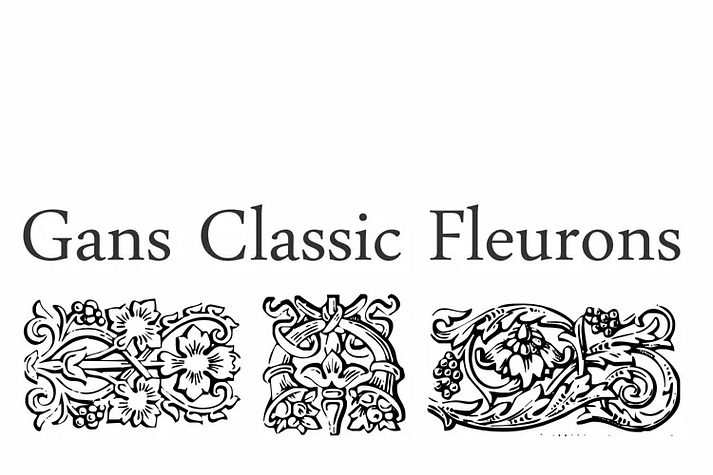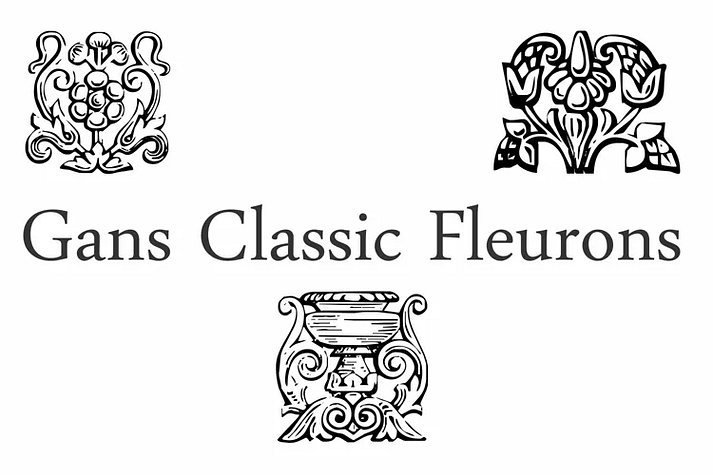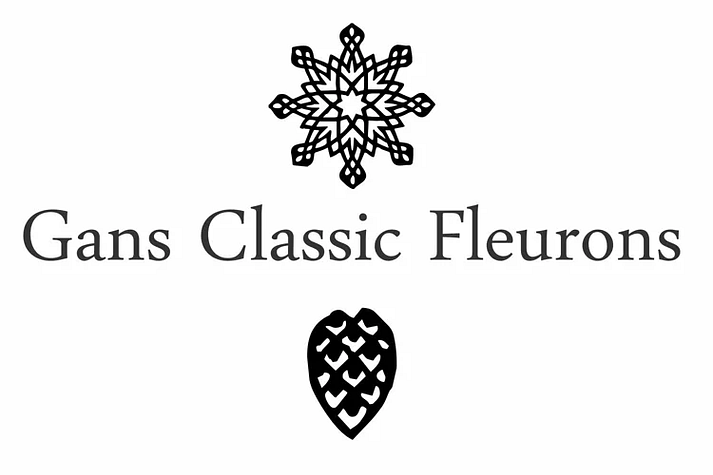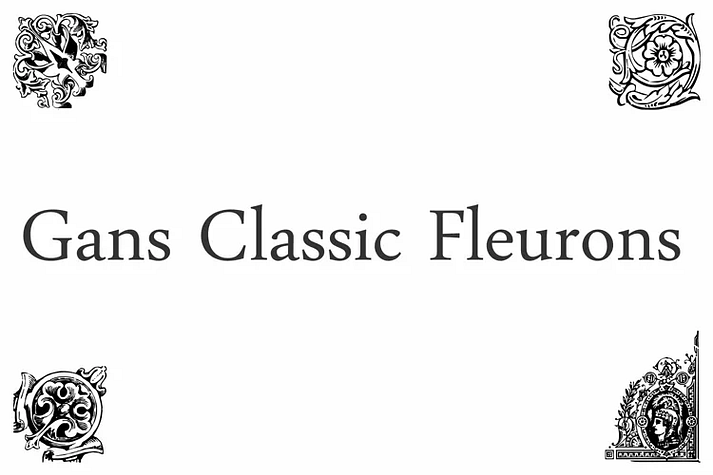
Gans Classic Fleurons
Designed by Paulo W, Gans Classic Fleurons is a monograms font family published by Intellecta Design.
A dingbat/decorative display font featuring many different styles of flourishes and ornaments. Great for a vintage antique feel. Digitization of the classic heritage from extinc spanish Fundicion Gans